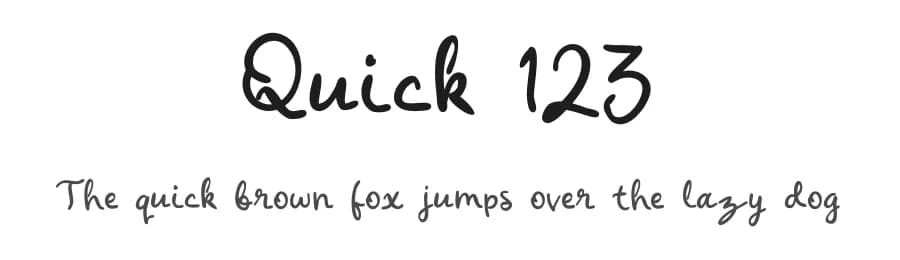
About Quick 123 Font
Quick 123 is a script & handwritten font designed by Mightyfire. It includes 111 glyphs, a regular weight, OTF (CFF) format, and 197 languages. Quick 123 is free to download; check the license details on this page before commercial use. Script & handwritten fonts like Quick 123 work best for wedding invitations, greeting cards, signatures, and elegant branding.
Quick 123 Font is a script font that shines as a display or heading face. Pair it with a clean sans-serif or serif font for body text β the contrast creates a clear hierarchy while the two styles stay balanced and easy to read.
Quick 123 Font
by Mightyfire
Quick 123 Font is a script handwritten typeface by Mightyfire, ideal for logos, invitations, branding, and creative projects.